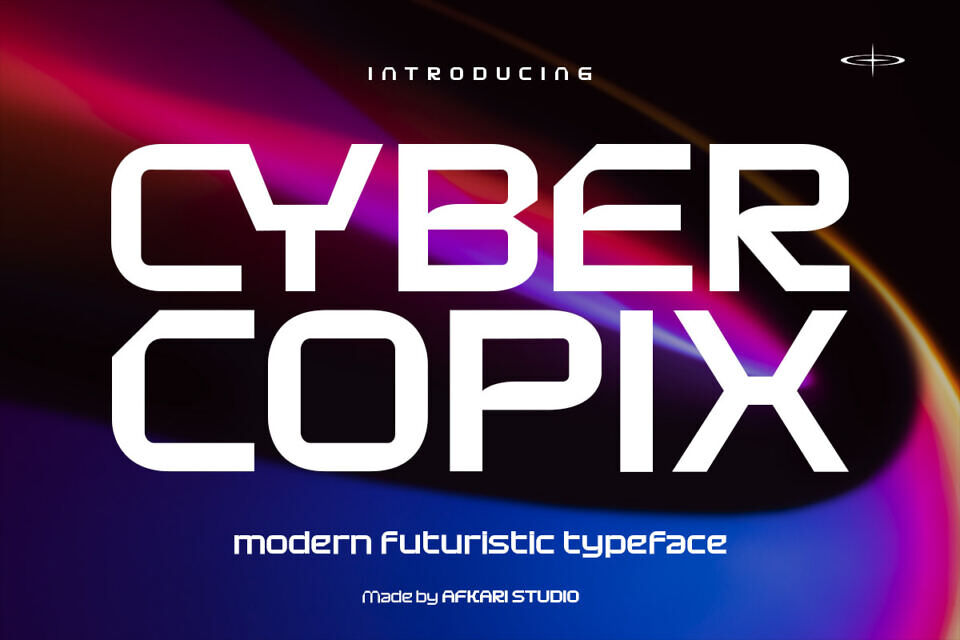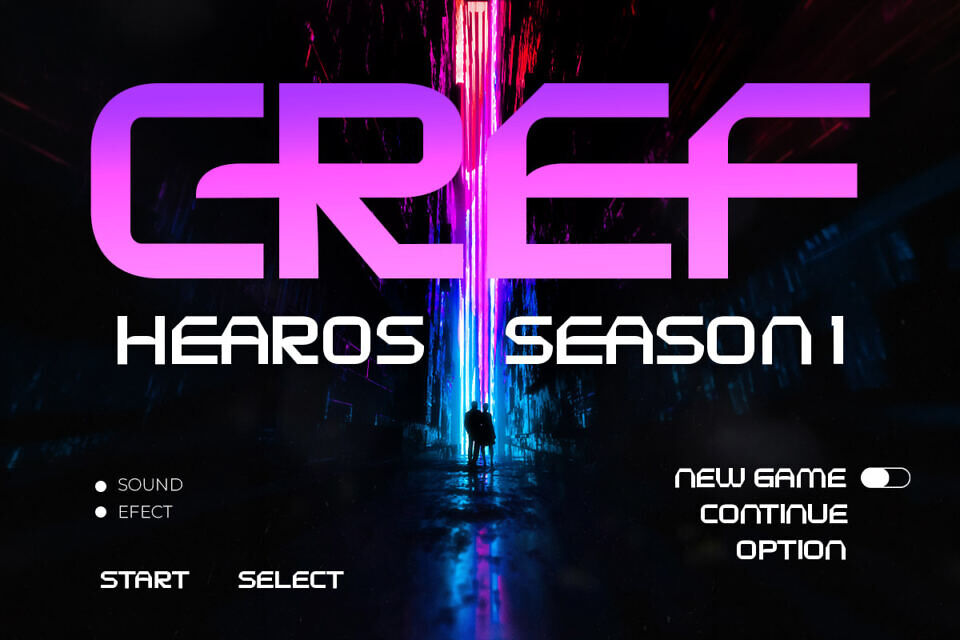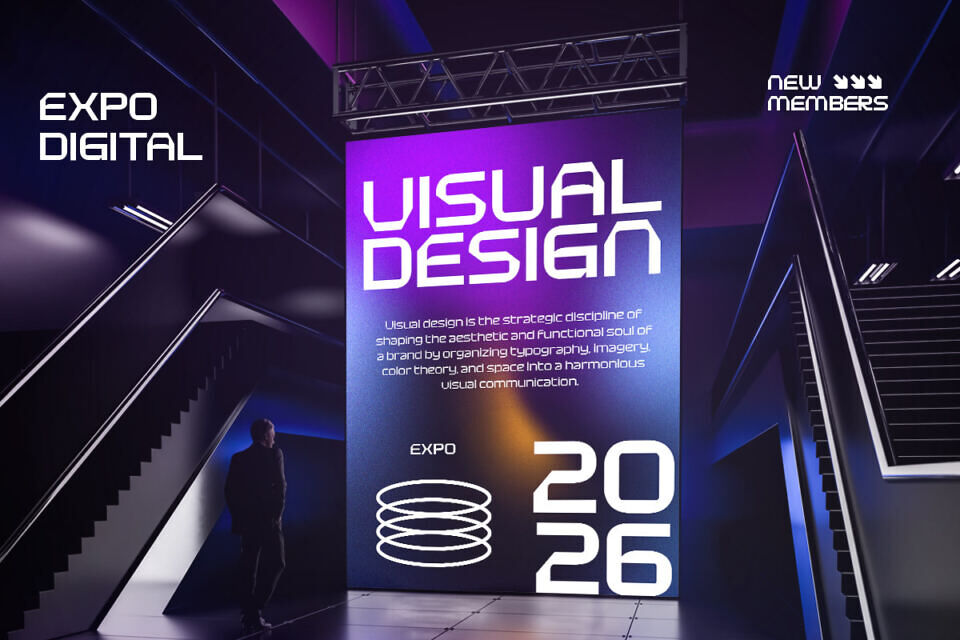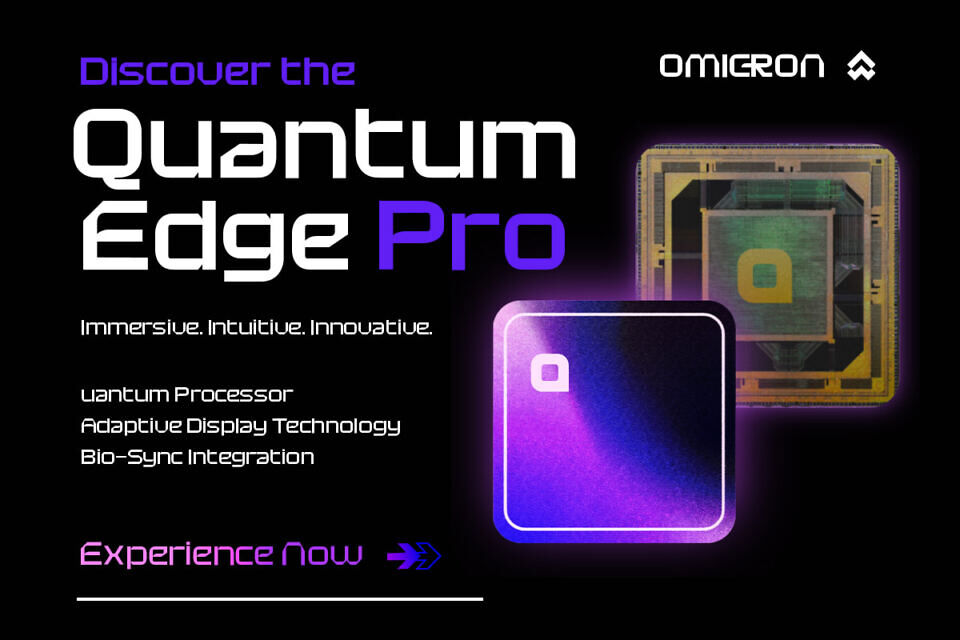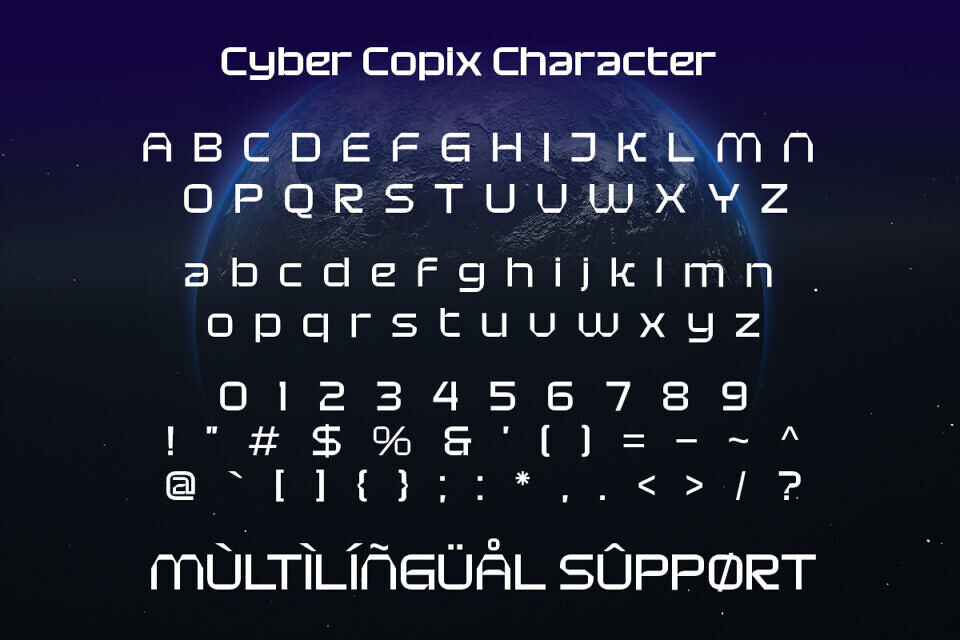
Cyber Copix Font
Cyber Copix is a modern futuristic sci-fi font for creators who want bold digital aesthetics and strong visual impact. Inspired by cyberpunk culture, advanced technology, robotics, and futuristic gaming worlds, this typeface combines sharp geometric shapes with sleek modern styling.
The Cyber Copix futuristic font features clean lines, a solid structure, and a strong high-tech personality. This futuristic font is perfect for designs that need innovation, speed, and modern energy. Whether you are creating esports branding, sci-fi movie titles, technology campaigns, gaming graphics, or futuristic UI concepts, Cyber Copix gives your typography a bold and professional futuristic identity.